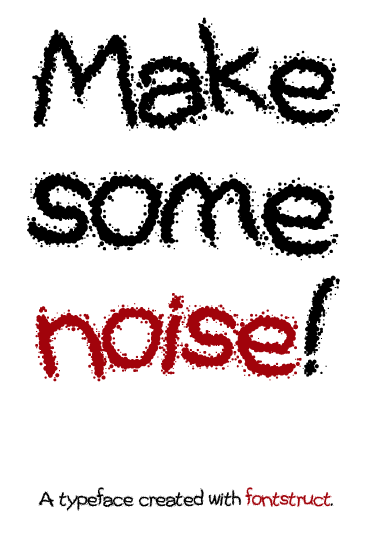
Beautiful grunge.
just great :)
Lovely work you did it here! I really like it
Great Job! I don't know about you, but I had a hell of a time editing the Arkham Bloodletters font in this style because of the difficulty in handling the smaller sized circles. Good control!